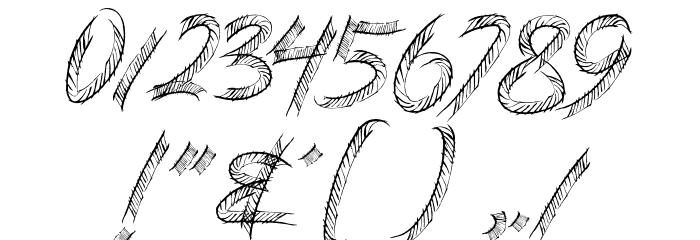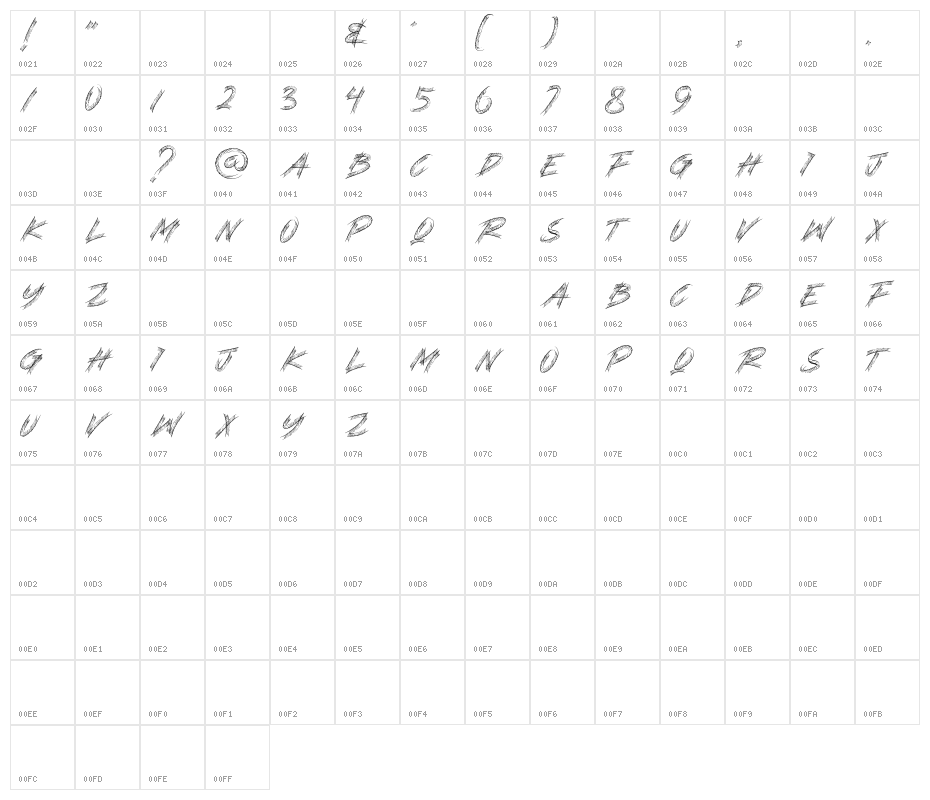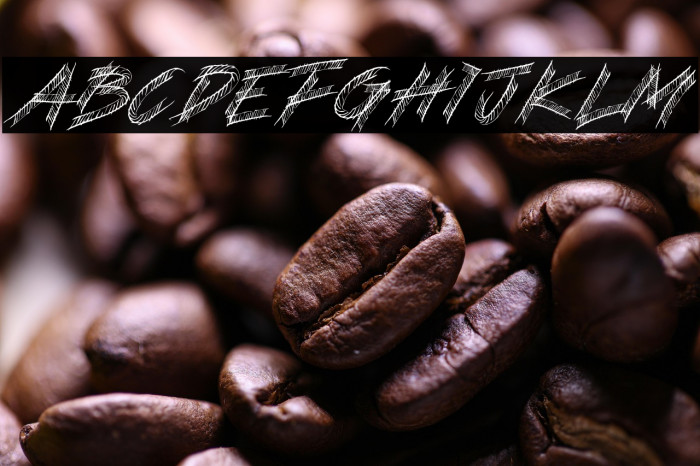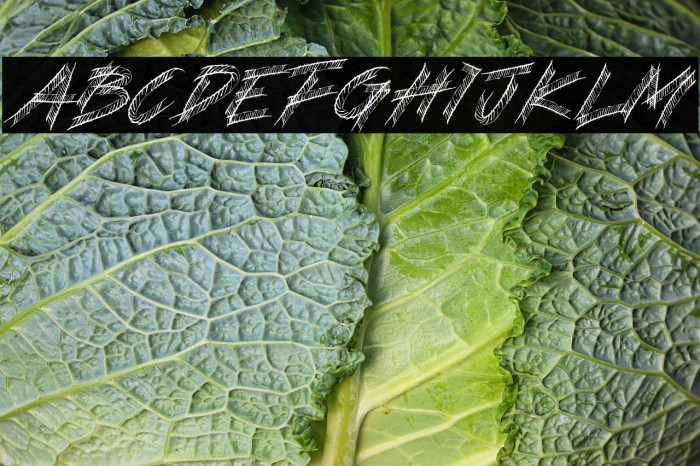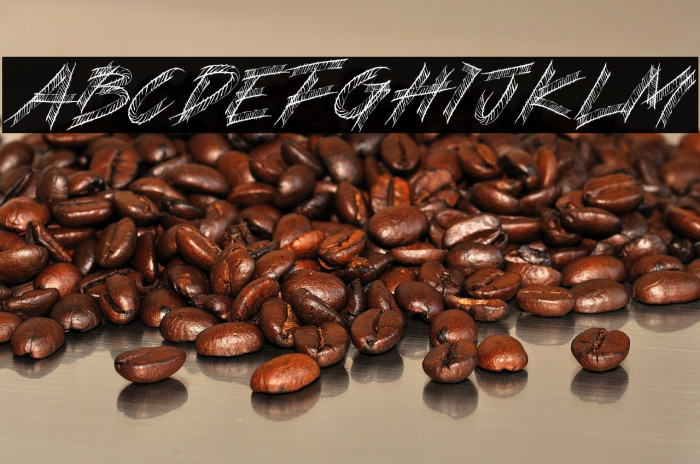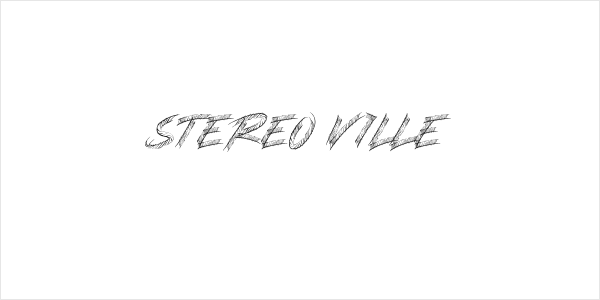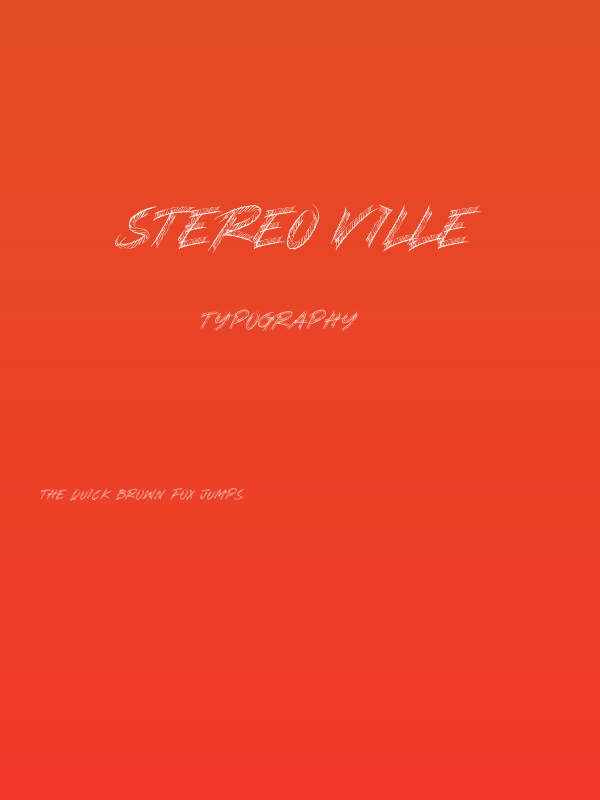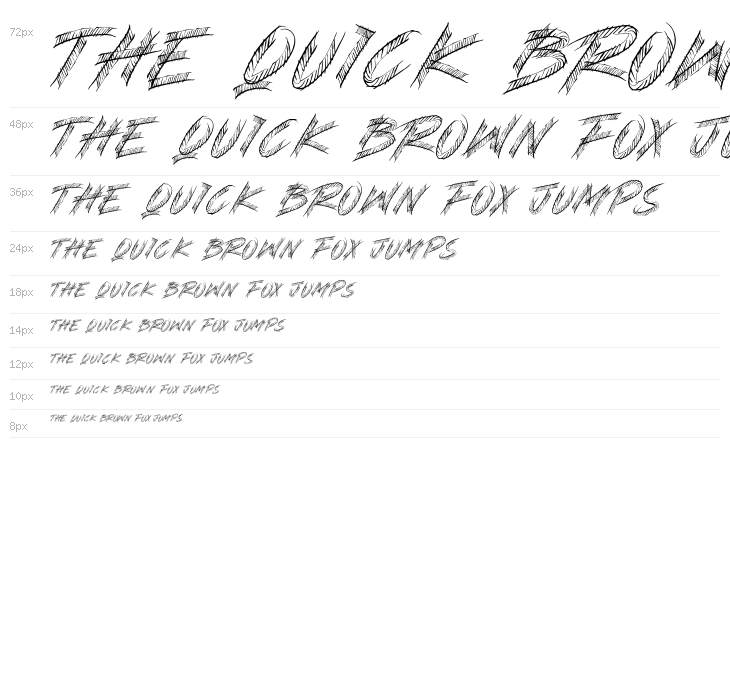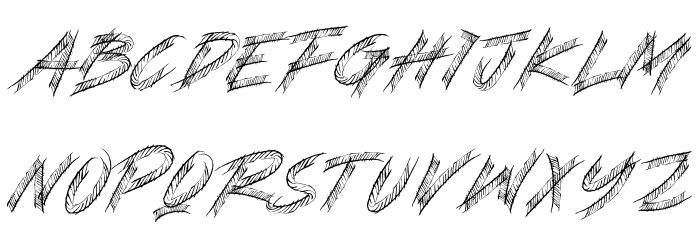
STEREO VILLE Font
STEREO VILLE Description
This font features a dynamic and energetic style, characterized by its sketch-like, hand-drawn appearance. The letters are slanted, giving it a sense of motion and fluidity. Each character is composed of multiple overlapping strokes, creating a textured and rough aesthetic. The uppercase and lowercase letters maintain a consistent style, with the uppercase being slightly larger and more pronounced. The numerals and special characters follow the same design principles, ensuring uniformity across the font. This font's unique and artistic flair makes it stand out, ideal for projects that require a creative and informal touch.
| Use Case | Logos, Posters, Creative Branding |
| Proposed Projects | Ideal for artistic projects, creative branding, posters, and informal invitations. |